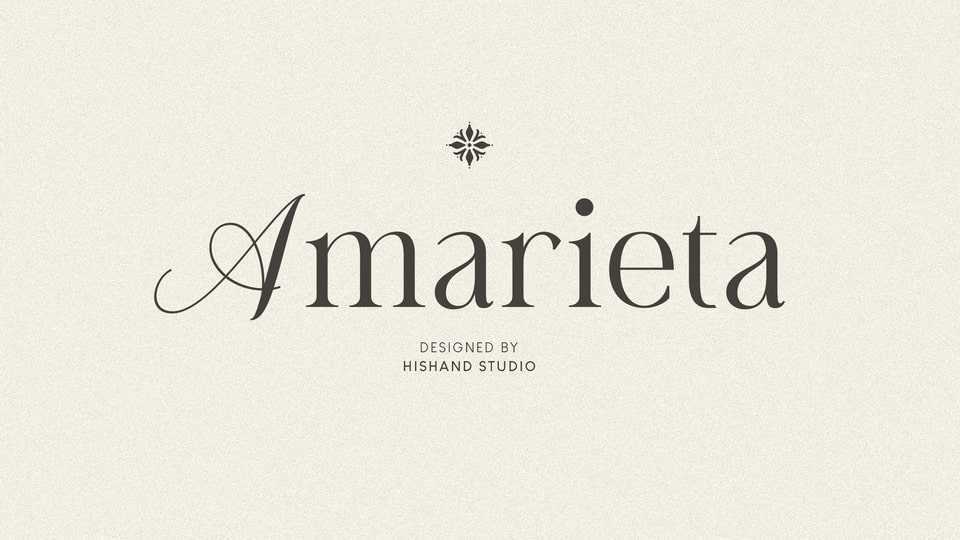
Download Amarieta font, a refined serif hybrid typeface that elegantly combines the structure of classic serifs with subtle script-inspired curves, designed for high-end use.